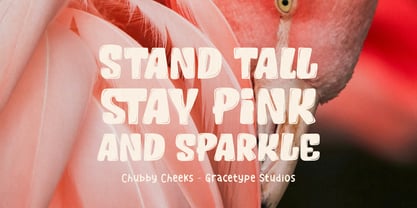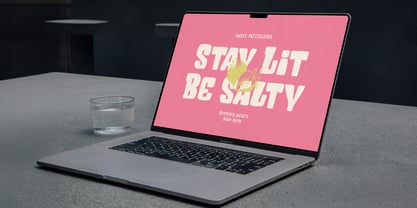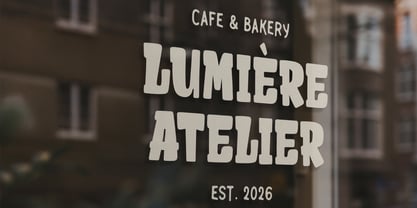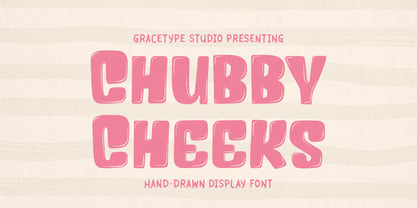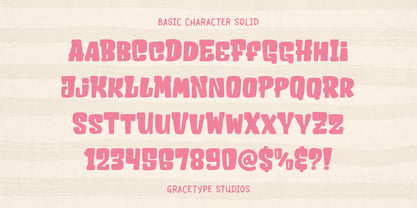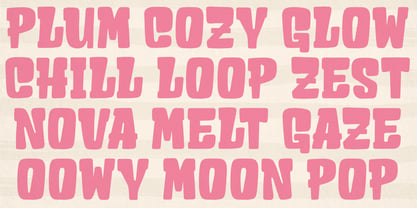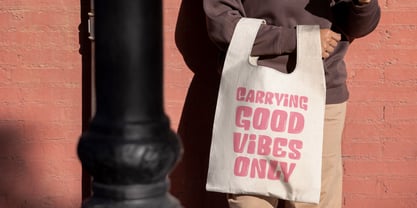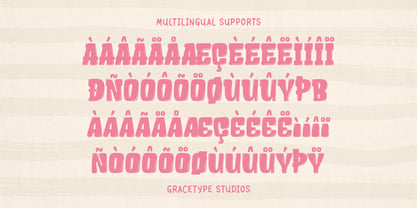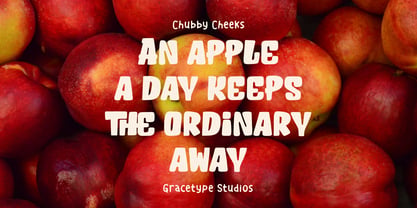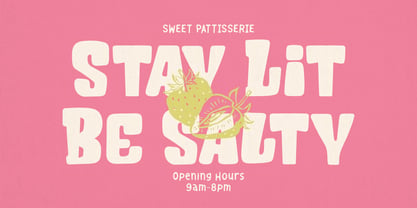
Chubby Cheeks Solid
by Tini Fitriani
Chubby Cheeks | Hand Drawn Display, from Gracetypestudio, suitable for any projects such as: logos, branding projects, homeware designs, product packaging, mugs, quotes, posters, shopping bags, t-shirts, book covers, name card, invitation cards, greeting cards, label, photography, watermark, special events, and all your other lovely projects that need a Hand Drawn taste.